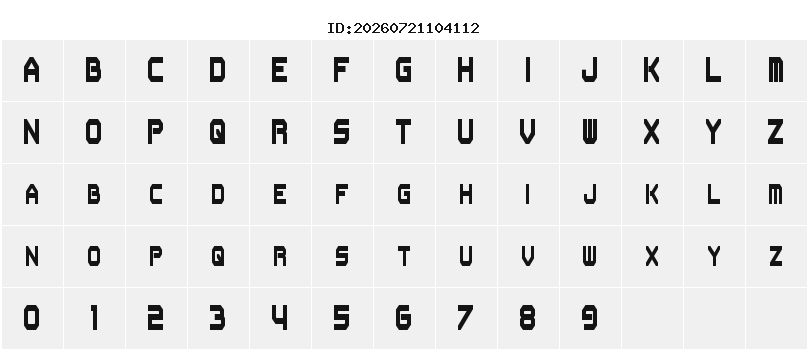
• Font Name: Flipbash Condensed
• Full Font Name: Flipbash Condensed
• Designer: Nelae Davidson
About Flipbash Condensed.ttf
Flipbash Condensed.ttf is a modern, elegant sans-serif font designed for ultimate readability and visual harmony. Perfect for branding, headlines, web design, and print materials.